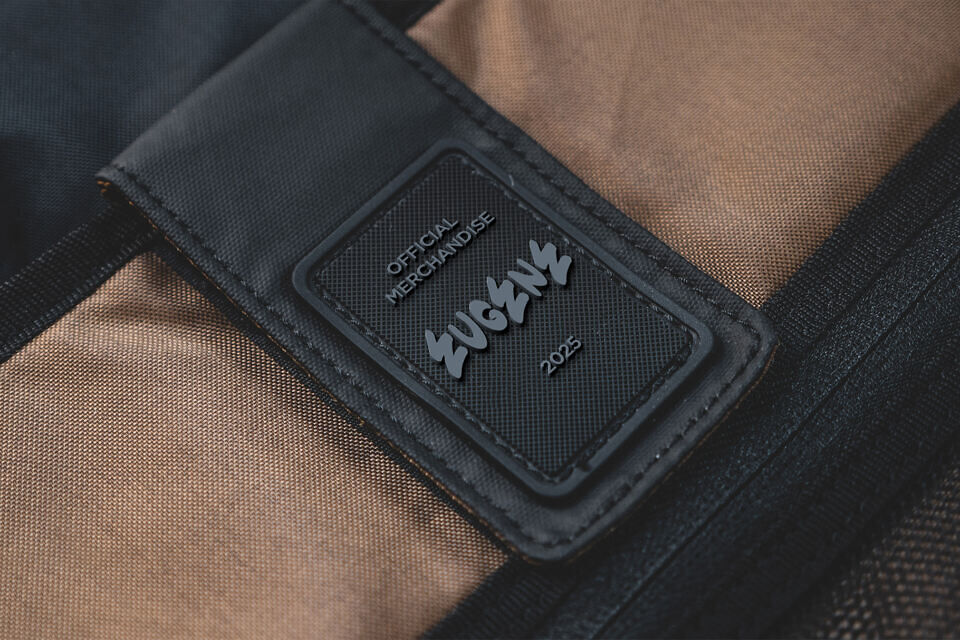
Dixon is an expressive handwritten font with bold personality and organic energy. Designed with quick, confident strokes and dynamic motion, it’s perfect for creating authentic, artistic typography. Bonus swashes are included to give your designs even more flair—ideal for standout headlines, logos, and creative branding.
- Expressive Handwriting Style: Bold, freeform strokes bring handmade charm and energy.
- Bonus Swashes Included: Decorative swashes add movement and personality to your layout.
- Natural Flow: Loose, dynamic rhythm mimics real handwriting with attitude.
- Ideal For: Logo design, branding, YouTube thumbnails, Instagram quotes, packaging, and artistic posters.